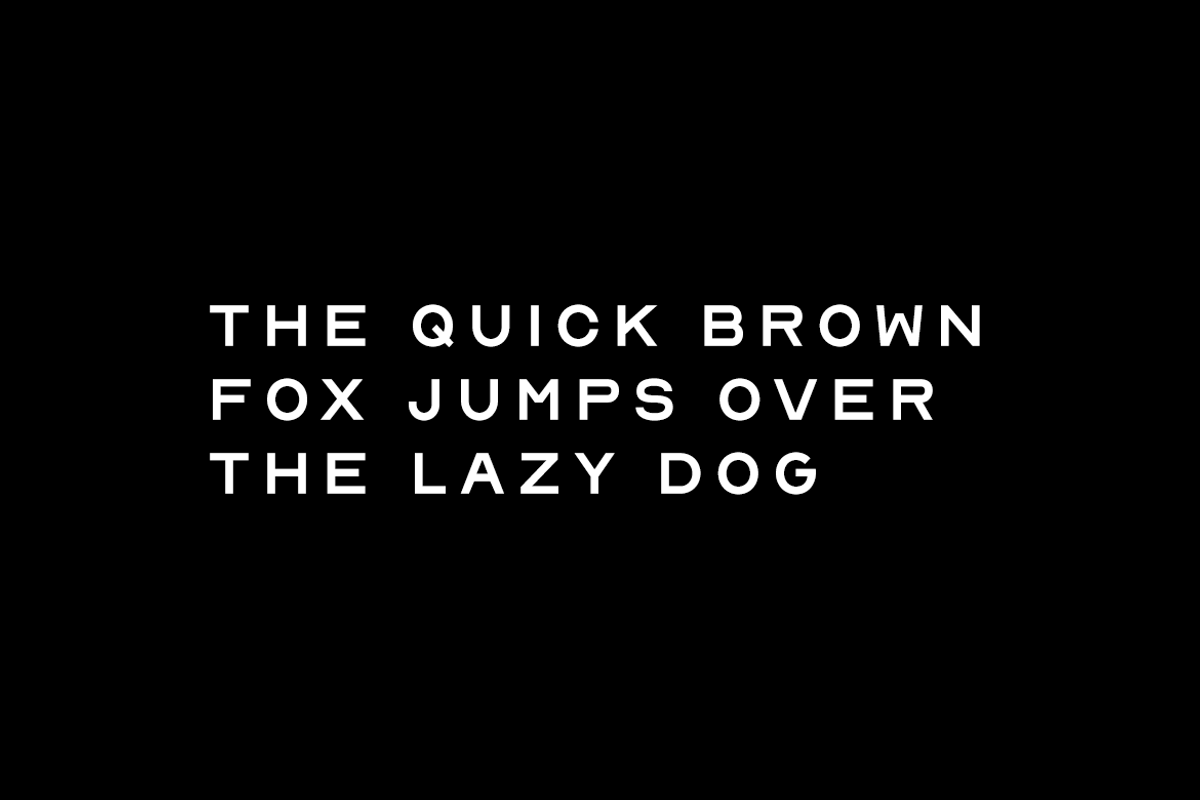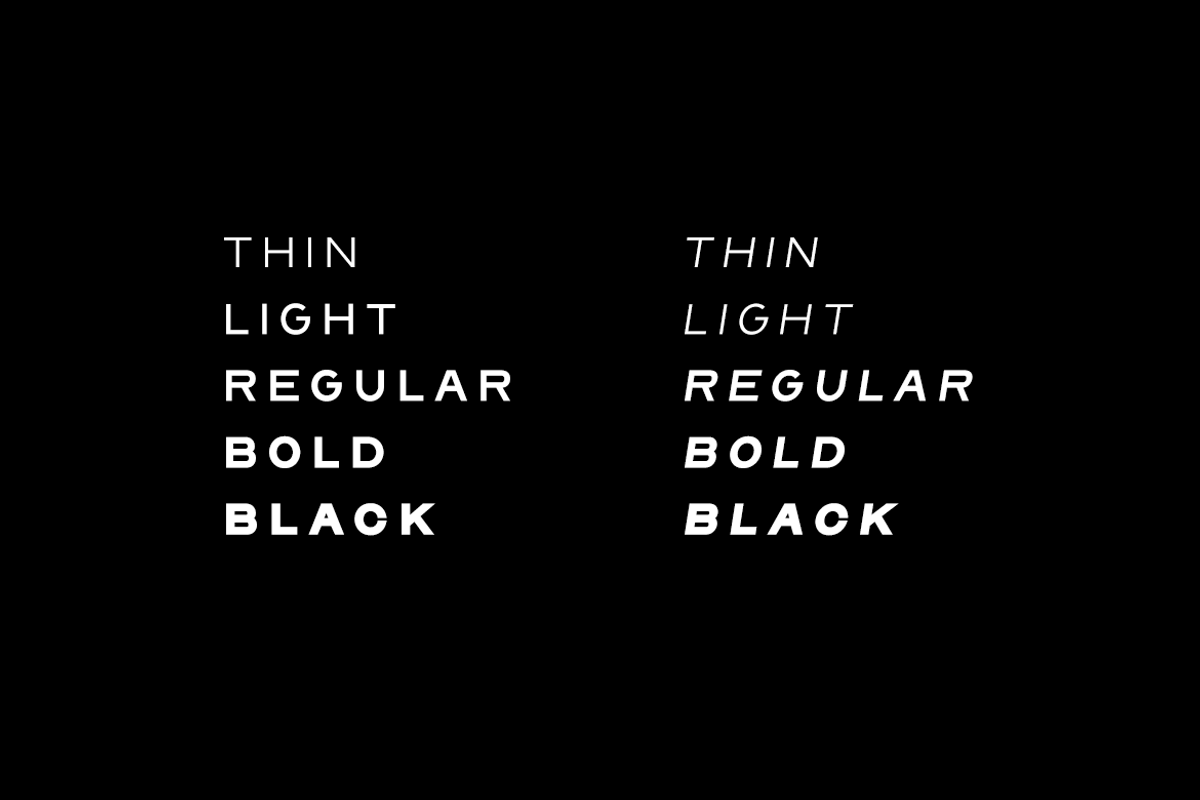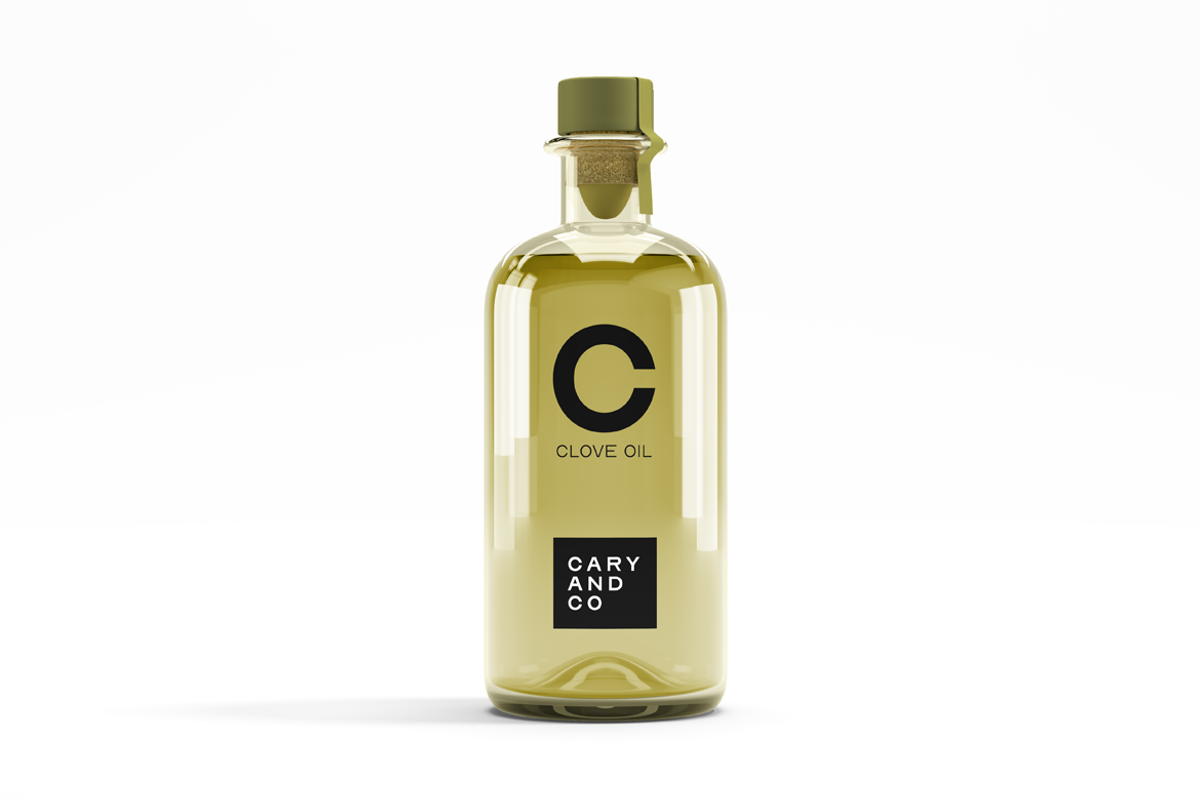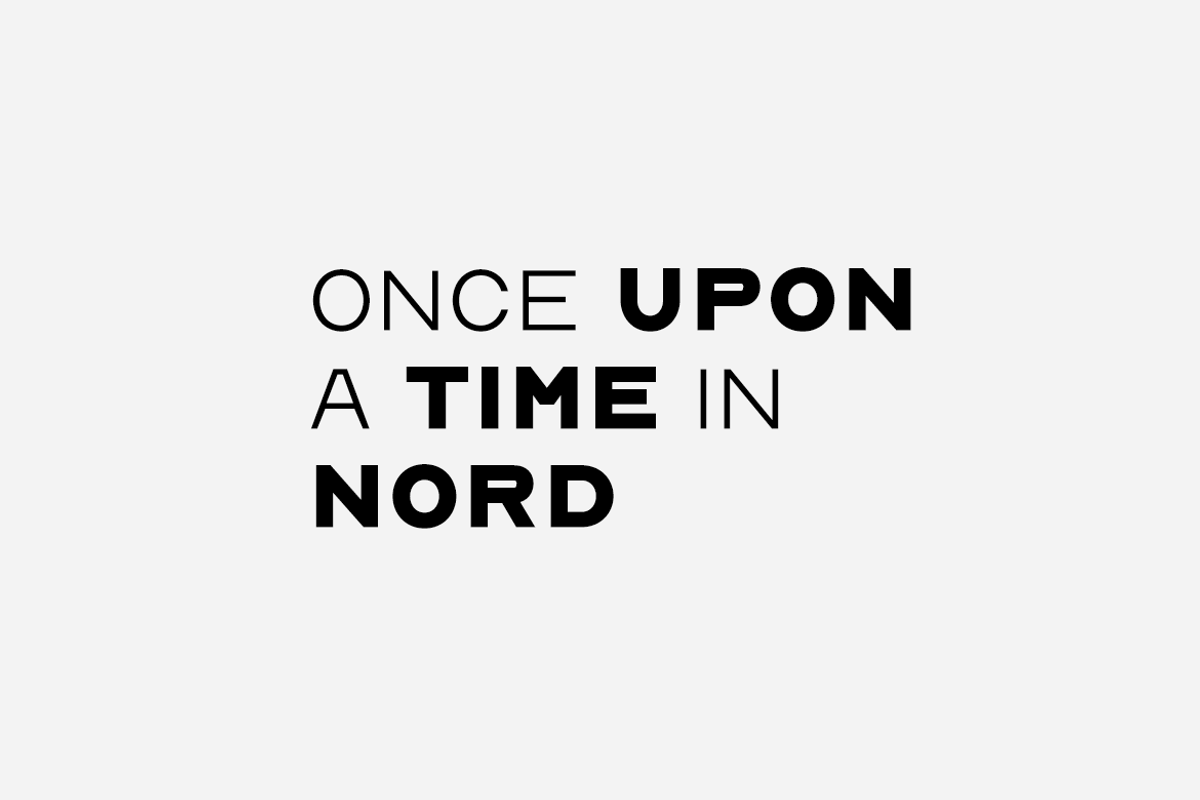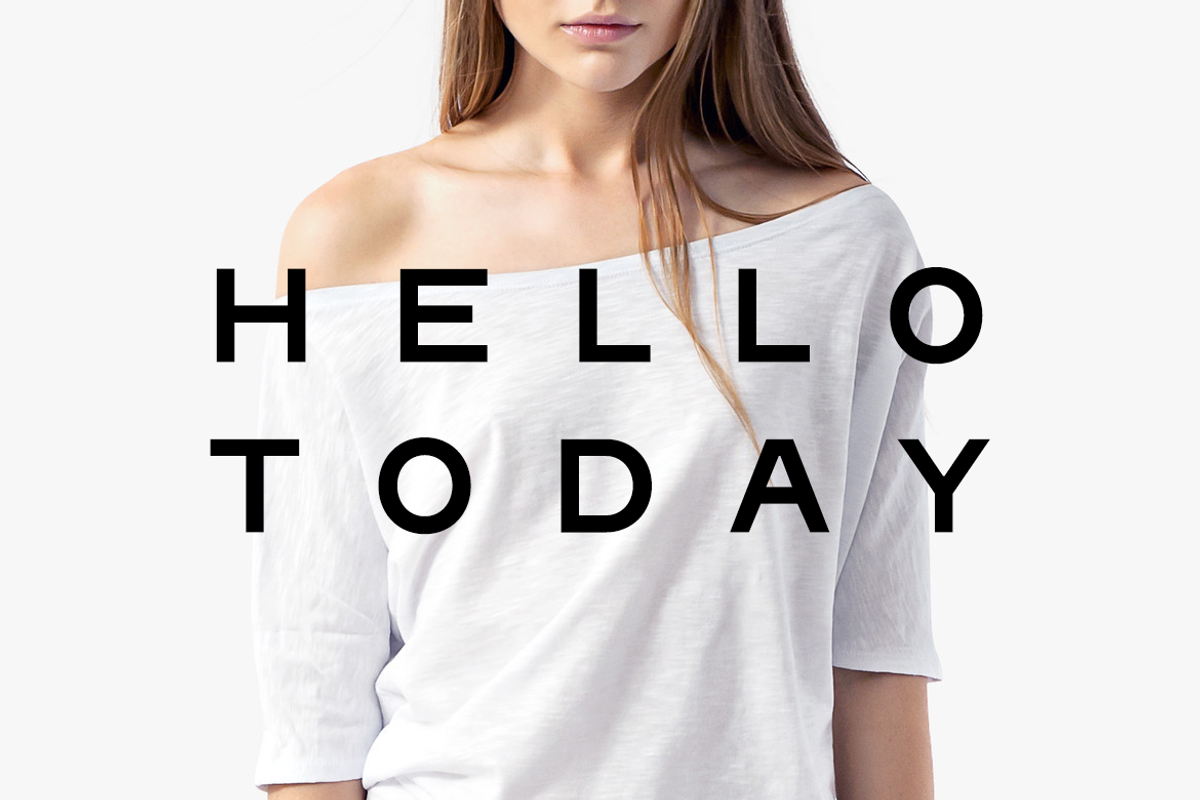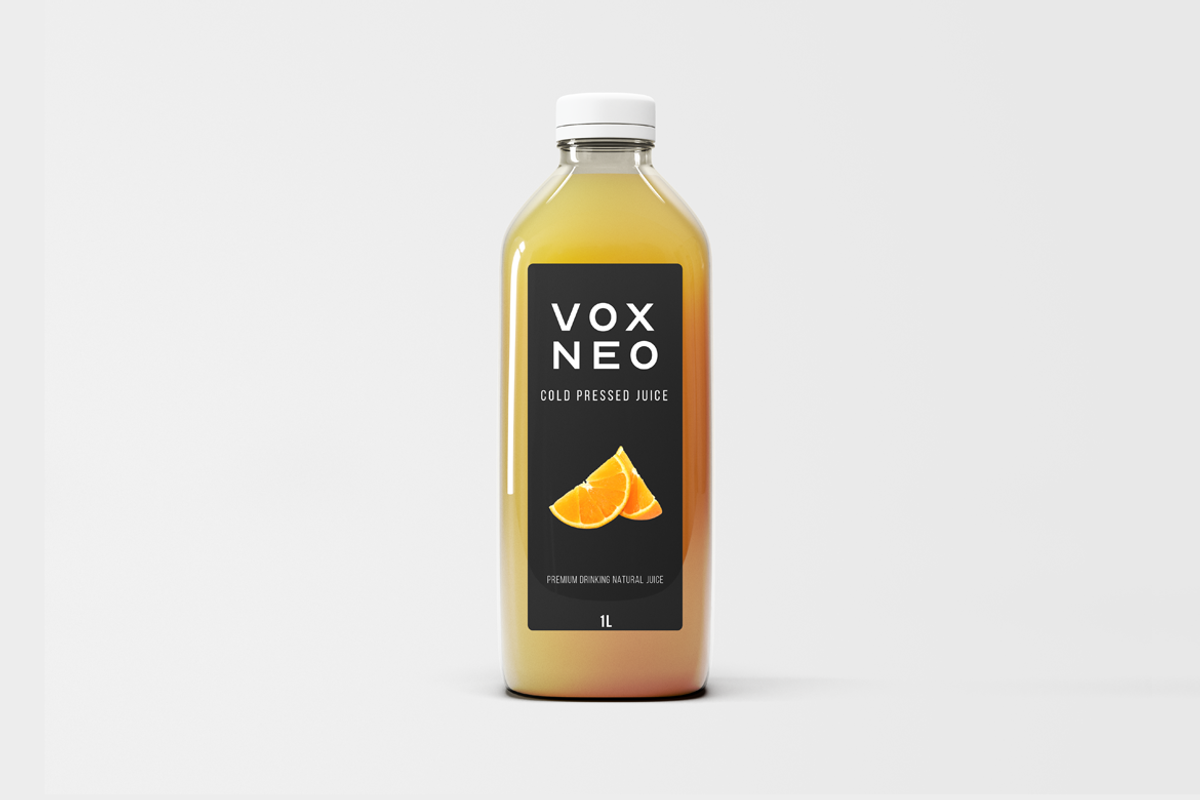
MALSTROM - Minimal Display Typeface
Love everlasting minimal designs and their timeless experience? Meet MALSTROM - a stunning sans-serif display typeface dedicated for minimal designs with a modern flair and aesthetics a class apart from the crowd. Inspired by some renowned geometric typefaces but with added finesse on overall balance, this all-caps typeface is particularly dedicated for display / headline / branding / logotype usage.
MALSTROM will be best suited for creating nicely looking headlines (add some more letter spacing and it will amaze you) that you always find in today's fashion web stores, luxury branding & logotypes, premium marketing graphics and minimal portfolio websites. Just see the demo images given above for an abstract idea about the capability of this typeface.
MALSTROM typeface comes with 10 fonts spanning across 5 weights: THIN / LIGHT / REGULAR / BOLD / BLACK and the italic versions of all weights. The pack includes Desktop Fonts (OTF & TTF) and Web Fonts (all EOT, SVG, TTF, WOFF, WOFF2 included) as licensing options.